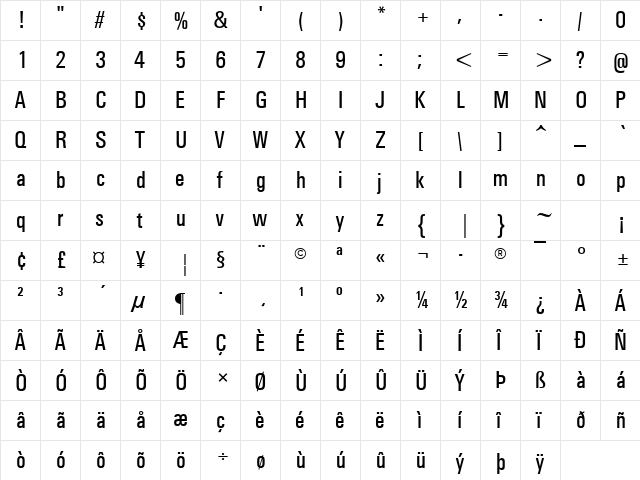
Univers Condensed Medium
Design Context for Univers Condensed Typeface
Univers Condensed is a composed and adaptable typeface that performs quietly and consistently across a wide range of design contexts. Its narrow stance lets it pack a punch even in space-constrained designs.